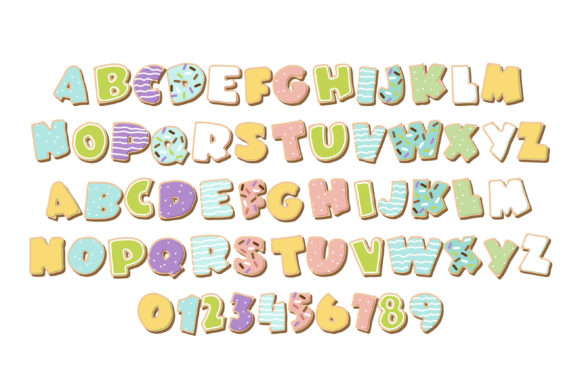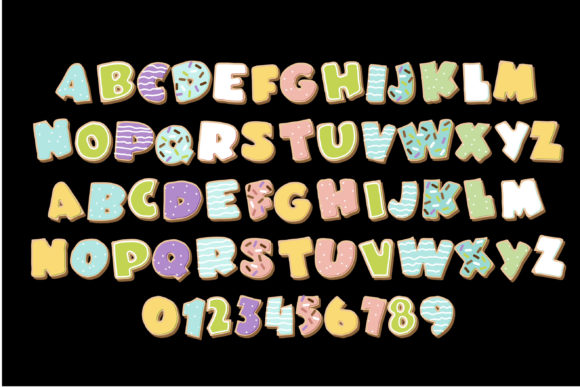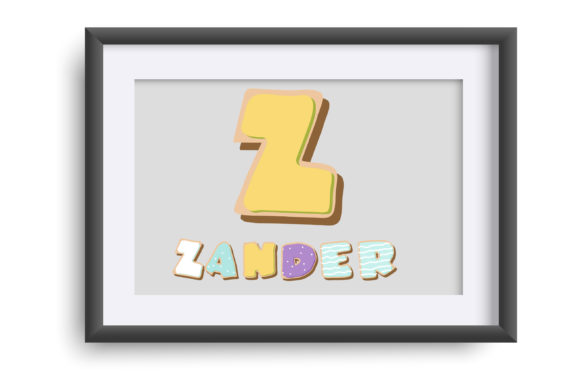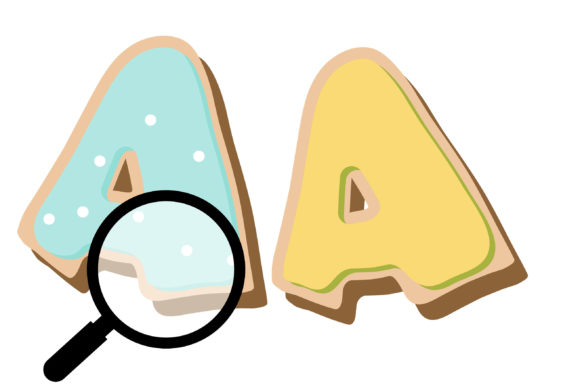
Spring Cookies Font
About Spring Cookies Font
Introducing Sweet Treats, a delightful full-color font that will satisfy your creative cravings! This font features simple and charming lettering, resembling delicious cookies frosted in a variety of spring colors.
Sweet Treats is designed to bring a touch of sweetness and joy to your designs. The cookie-like lettering creates a playful and inviting atmosphere, making it perfect for a range of projects. Whether you’re designing for spring-themed events, baking blogs, cute stationery, or any other creative endeavor, Sweet Treats will add a delightful and whimsical touch.
The font showcases a palette of spring colors, including pastel shades that evoke the freshness and vibrancy of the season. Each letter is frosted with its own unique color, creating a visually appealing and delectable design. The simplicity of the lettering allows the colors to take center stage, making Sweet Treats a versatile and eye-catching font.
Let Sweet Treats satisfy your creative appetite and add a sprinkle of sweetness to your designs. Explore the endless possibilities and let your imagination run wild. Enjoy creating with this charming and mouthwatering font!